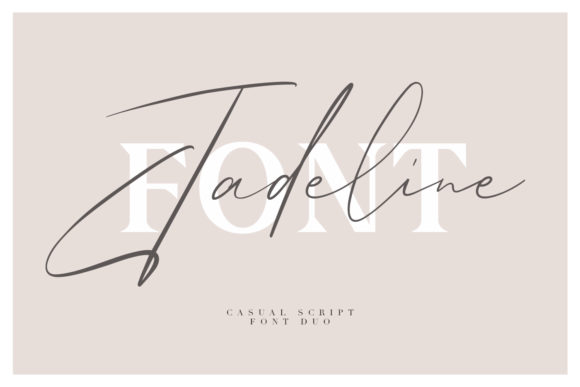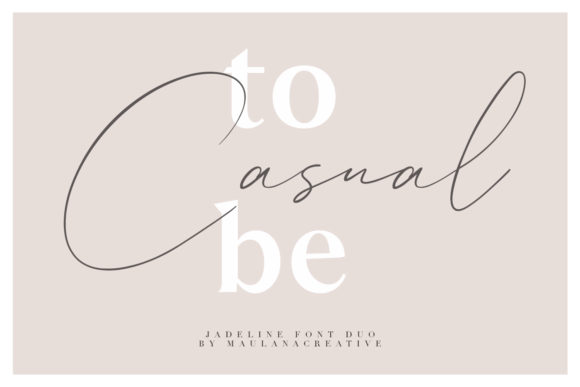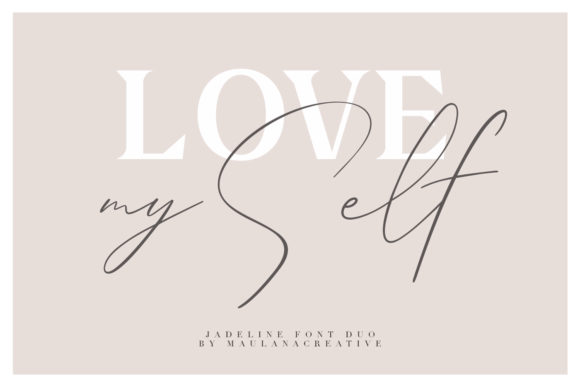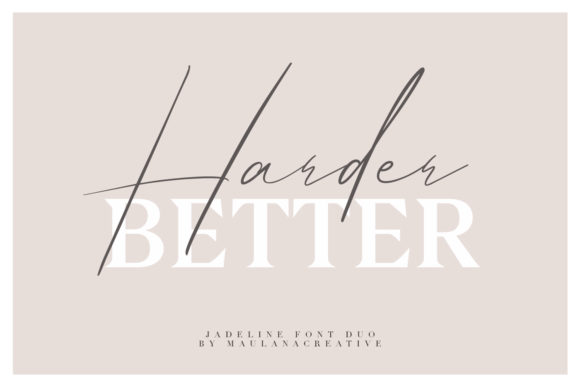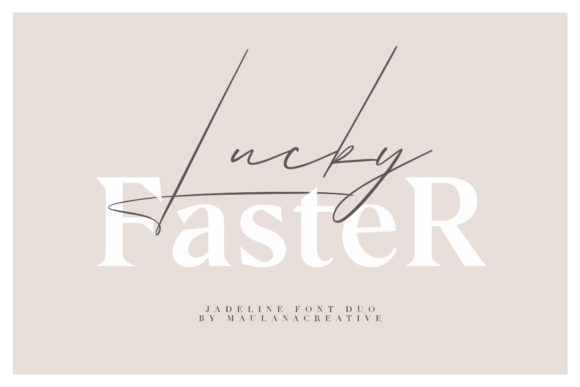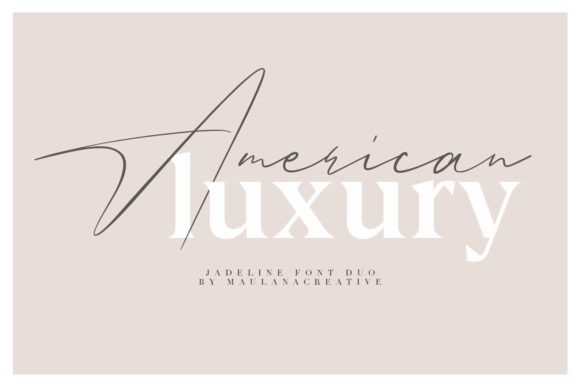
Jadeline Script Font
About Jadeline Script Font
Jadeline is a stunning and bold handwritten font duo with a light feel. It will turn any design project into a stand out!